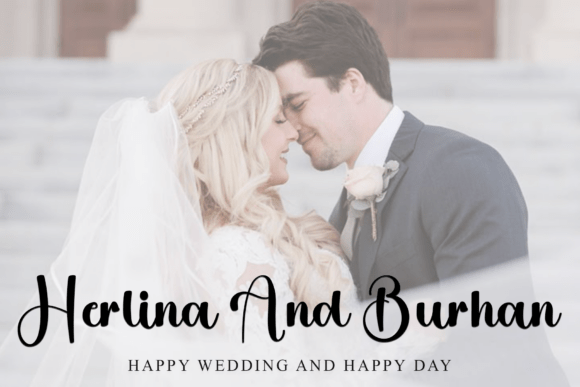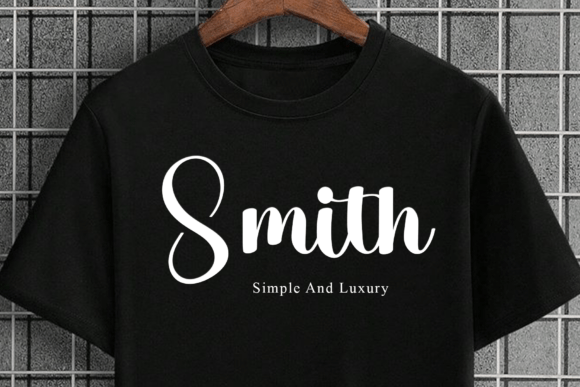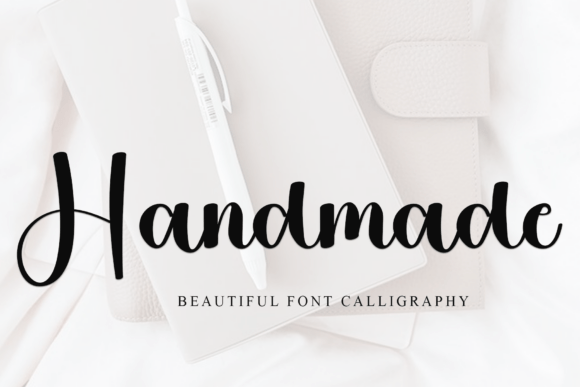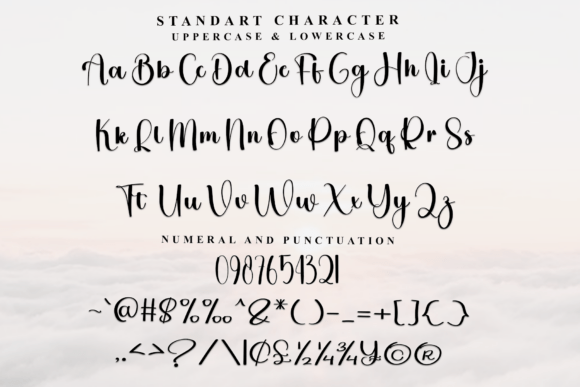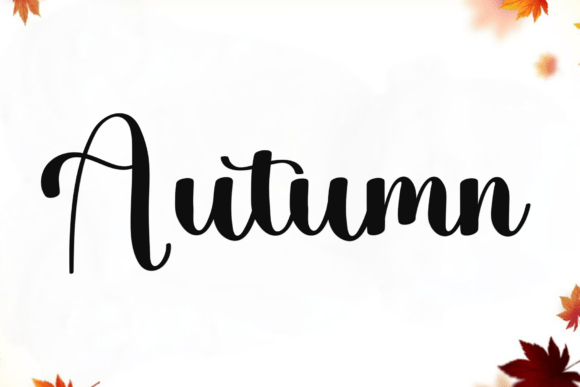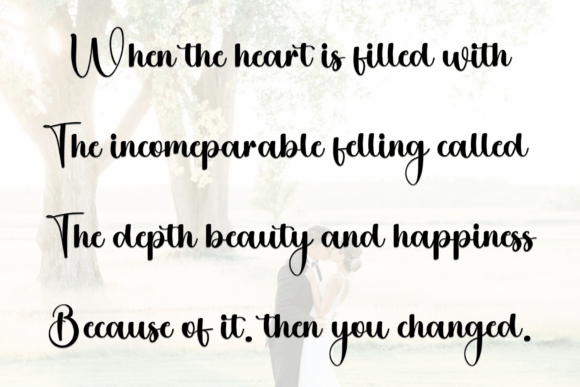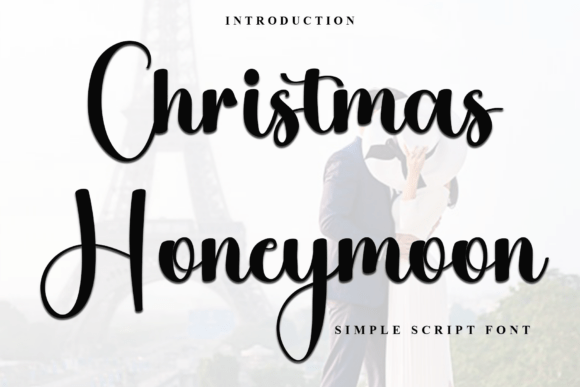
Introducing Christmas Honeymoon Font: A Beautiful and Versatile Typeface for Your Creative Projects
Are you looking for a font that adds a touch of magic to your designs? Look no further than Christmas Honeymoon Font, a stunning and eye-catching typeface that is sure to captivate your audience. With its soft, unique touch and distinctive strokes, this font is perfect for designers, crafters, and creative enthusiasts who want to add a special something to their projects.
A Font that Stands Out from the Crowd
Christmas Honeymoon Font is designed to be beautiful and meaningful, with a unique character that sets it apart from other fonts. Its soft, flowing strokes give it a distinctive look that is both elegant and playful, making it perfect for a wide range of design projects. Whether you’re creating a holiday-themed design, a romantic getaway brochure, or a festive craft project, this font is sure to add a touch of magic to your work.
Versatile and Compatible
One of the best things about Christmas Honeymoon Font is its versatility. With various characters and a natural font style, it’s perfect for use in a wide range of products, from digital designs to print materials. Whether you’re working on a Windows or open-source platform, this font is compatible with a variety of applications, making it easy to incorporate into your workflow.
Christmas Honeymoon Font is a dream come true for designers and crafters who want to add a personal touch to their projects. With its unique character and soft, flowing strokes, this font is perfect for use in:
- Digital designs, such as social media graphics, blog posts, and website headers
- Print materials, such as brochures, flyers, and business cards
- Craft projects, such as handmade cards, gift tags, and scrapbooking
- Artistic and creative projects, such as illustrations, paintings, and mixed media art
Why Choose Christmas Honeymoon Font?
So why choose Christmas Honeymoon Font for your next project? Here are just a few reasons:
- Unique character: This font has a distinctive look that sets it apart from other fonts, making it perfect for designers who want to stand out from the crowd.
- Versatility: With various characters and a natural font style, Christmas Honeymoon Font is perfect for use in a wide range of products and applications.
- Easy to use: This font is compatible with a variety of applications, making it easy to incorporate into your workflow.
- High-quality design: With its soft, flowing strokes and elegant look, Christmas Honeymoon Font is perfect for designers who want to create high-quality designs.
Tips for Using Christmas Honeymoon Font
Here are a few tips for using Christmas Honeymoon Font in your next project:
- Use it sparingly: Because of its unique character, Christmas Honeymoon Font can be overwhelming if used too much. Use it sparingly to add a touch of magic to your design.
- Pair it with other fonts: Christmas Honeymoon Font pairs well with other fonts, such as sans-serif fonts or script fonts. Experiment with different pairings to find the one that works best for your design.
- Experiment with colors: This font looks great in a variety of colors, from bright and bold to soft and pastel. Experiment with different colors to find the one that works best for your design.